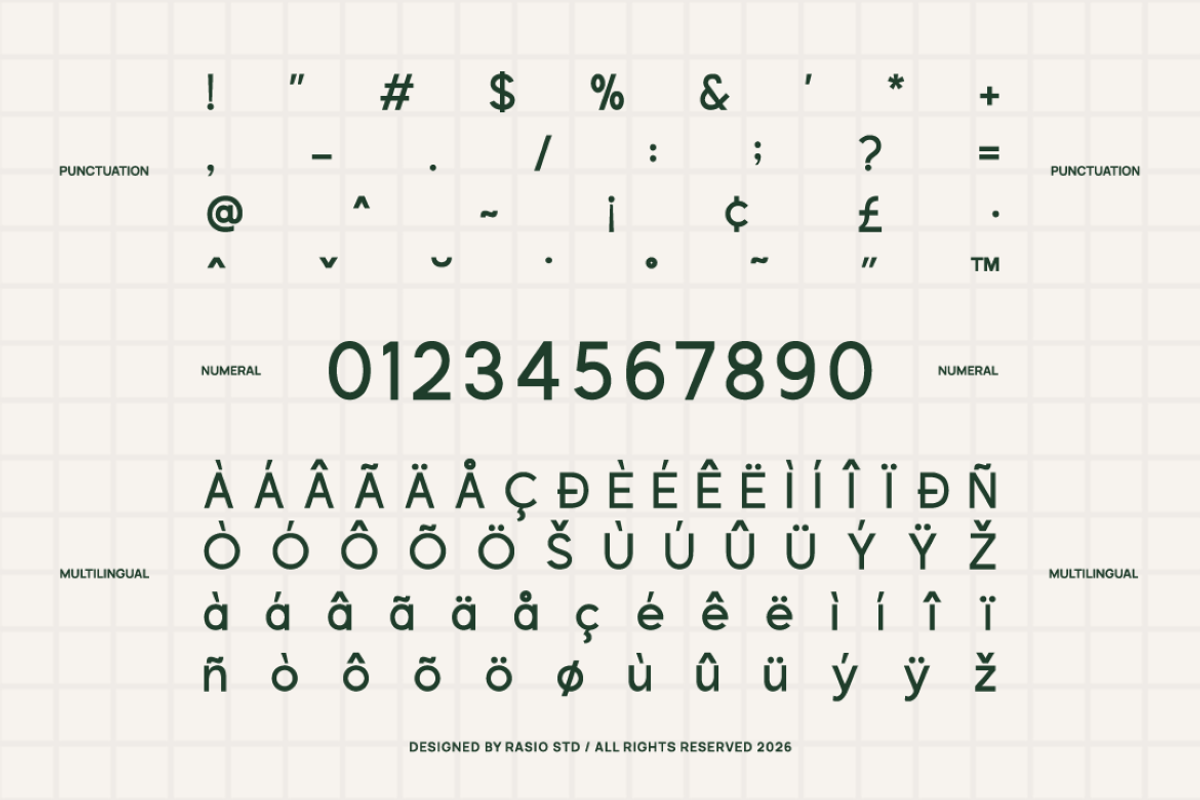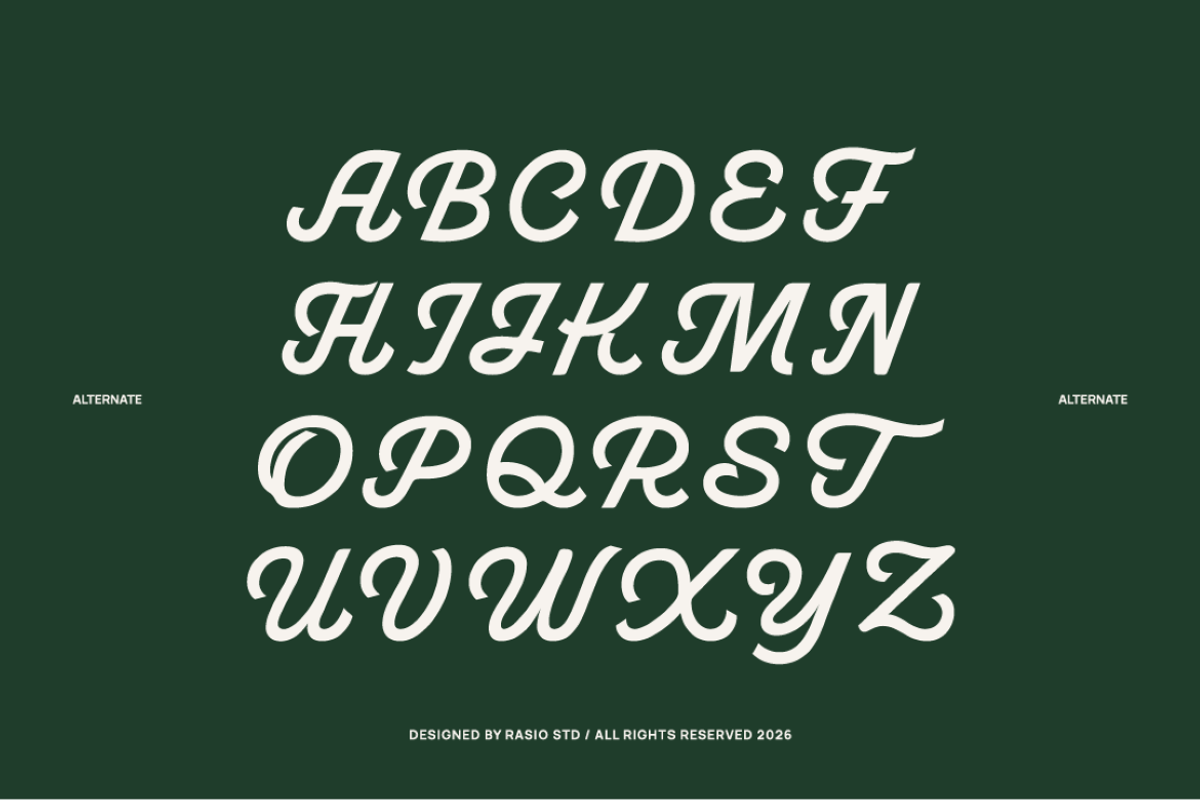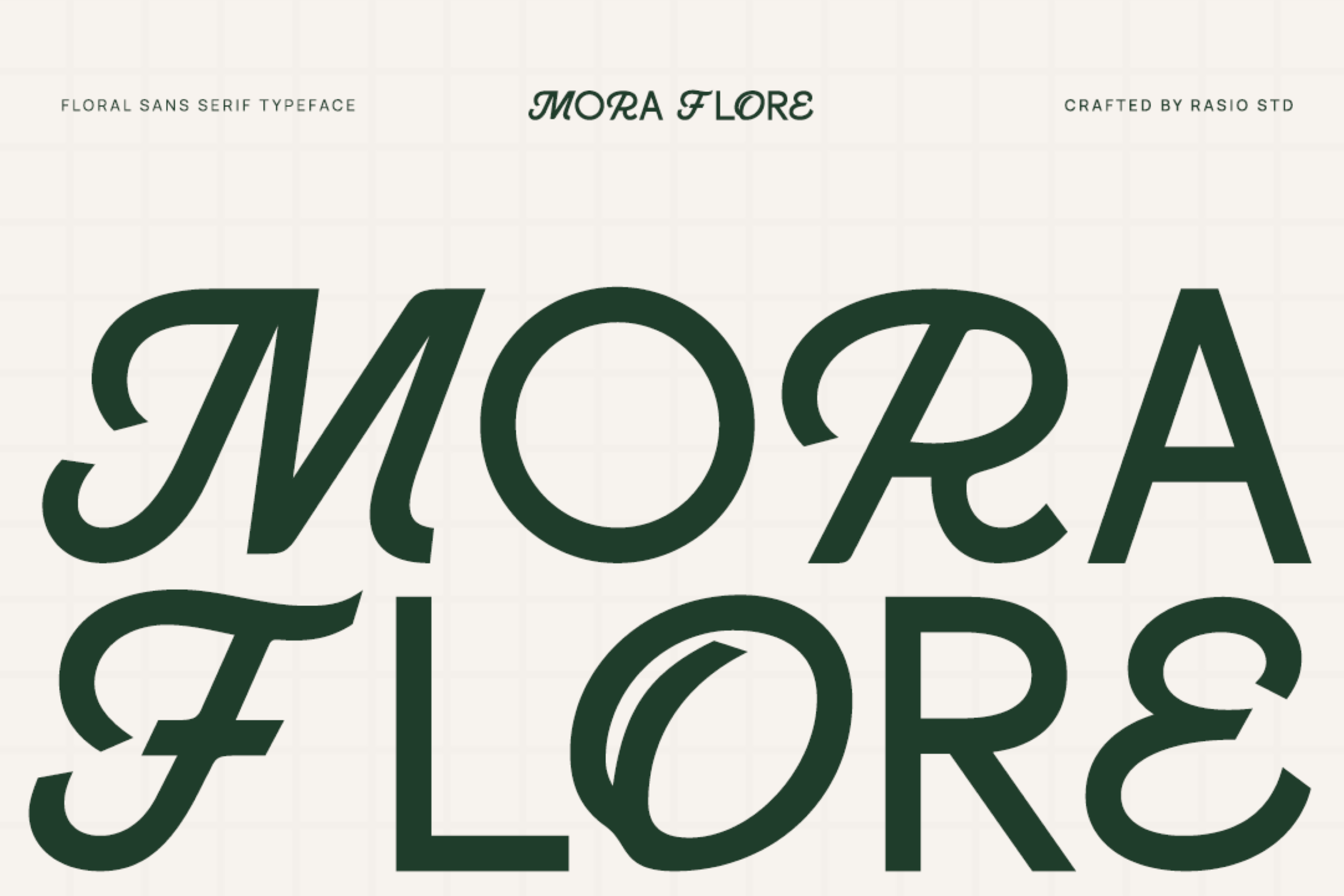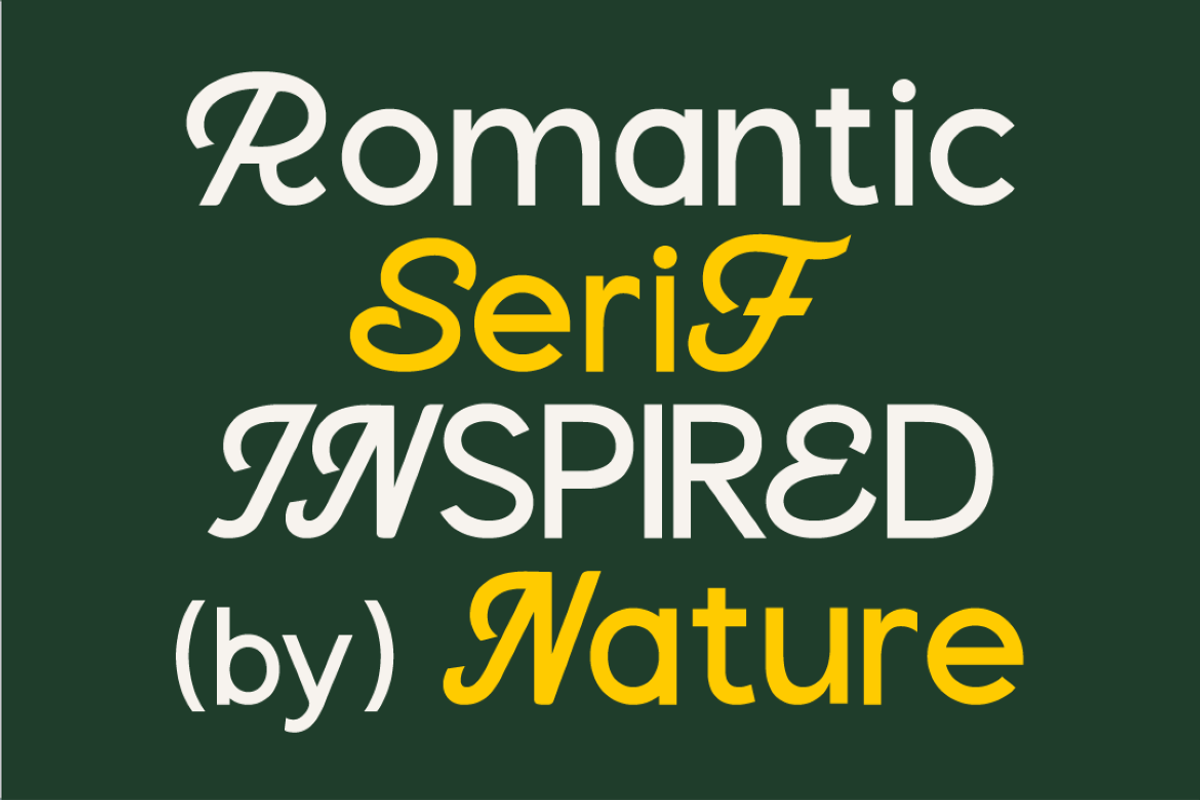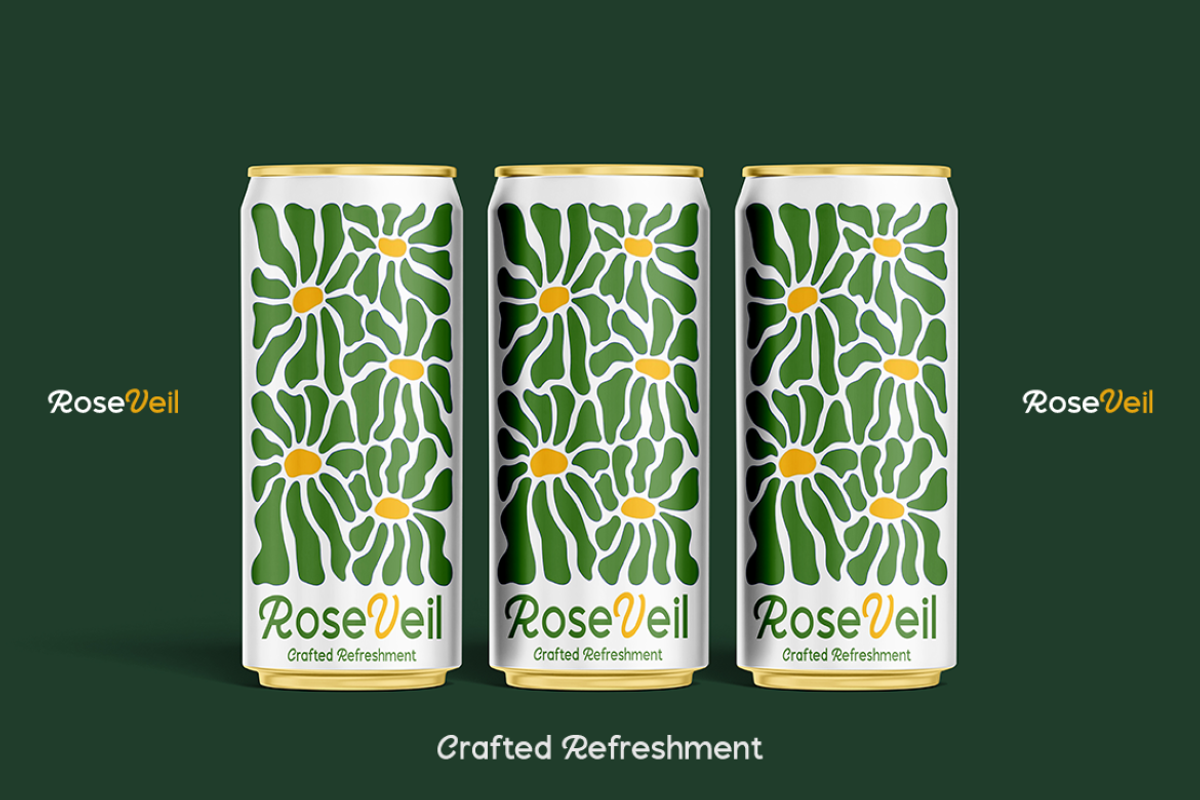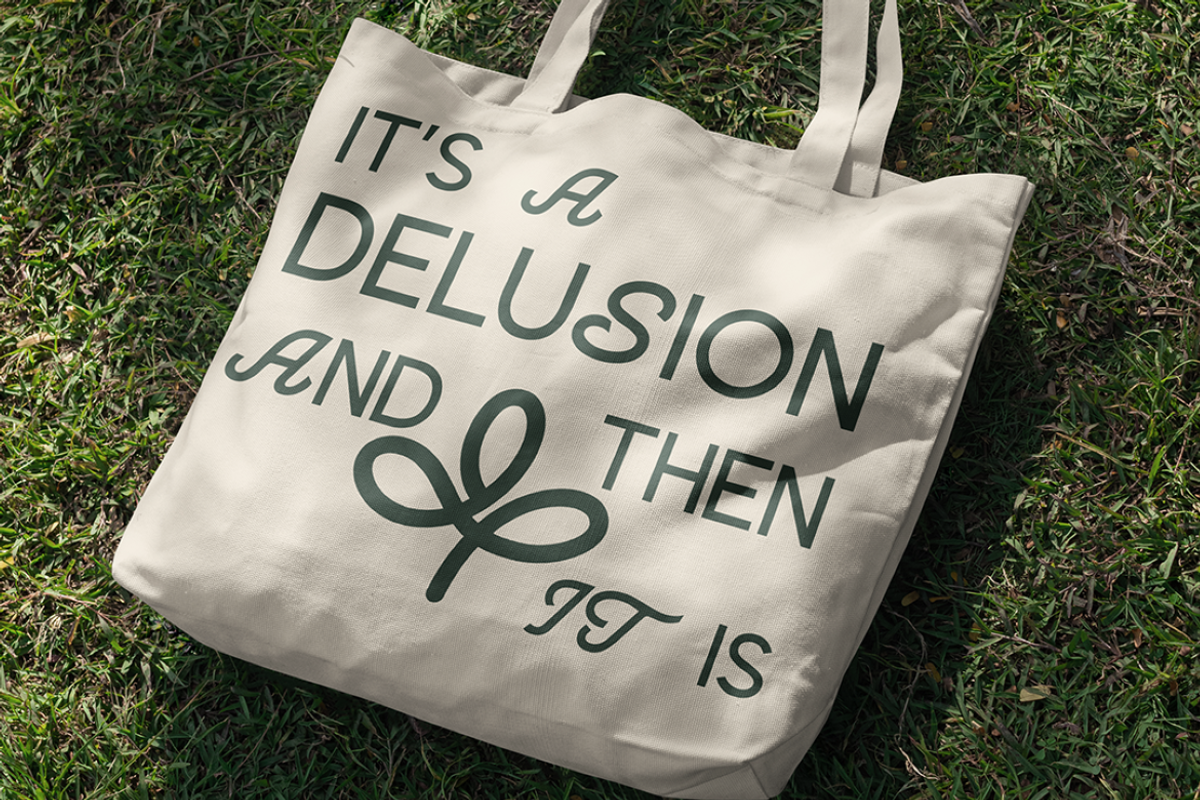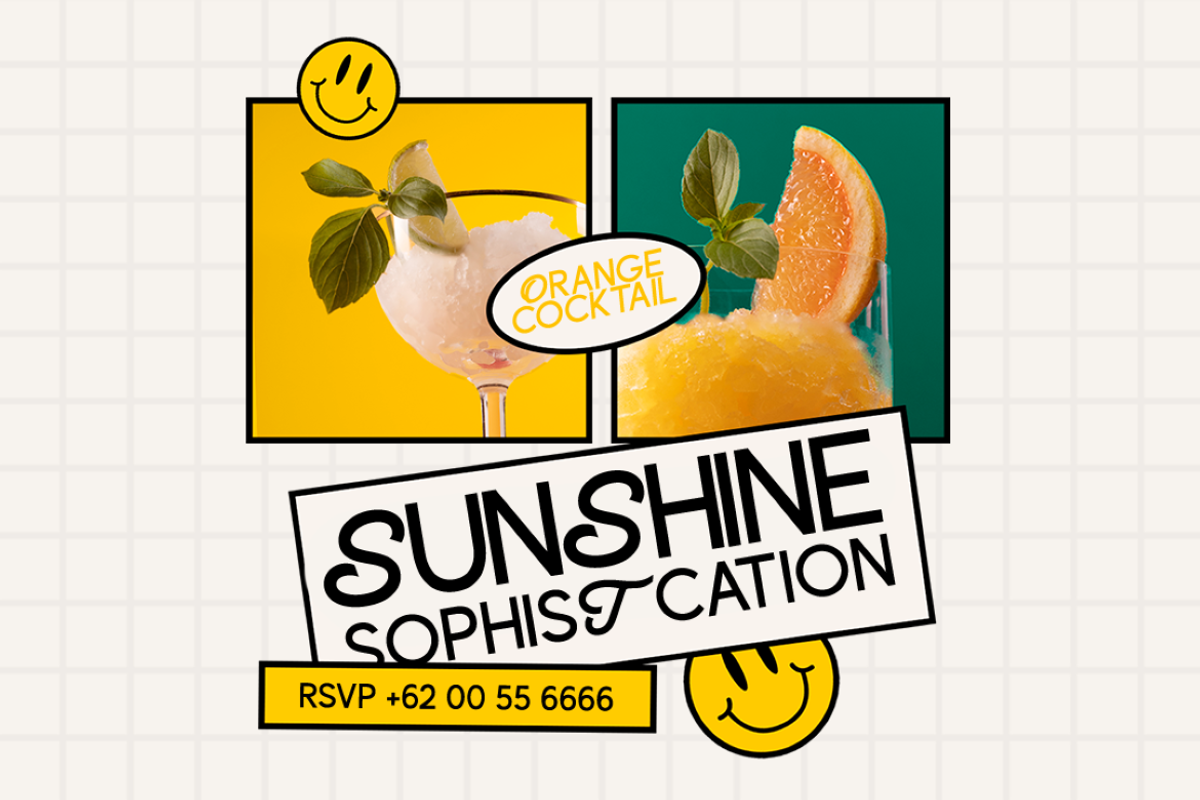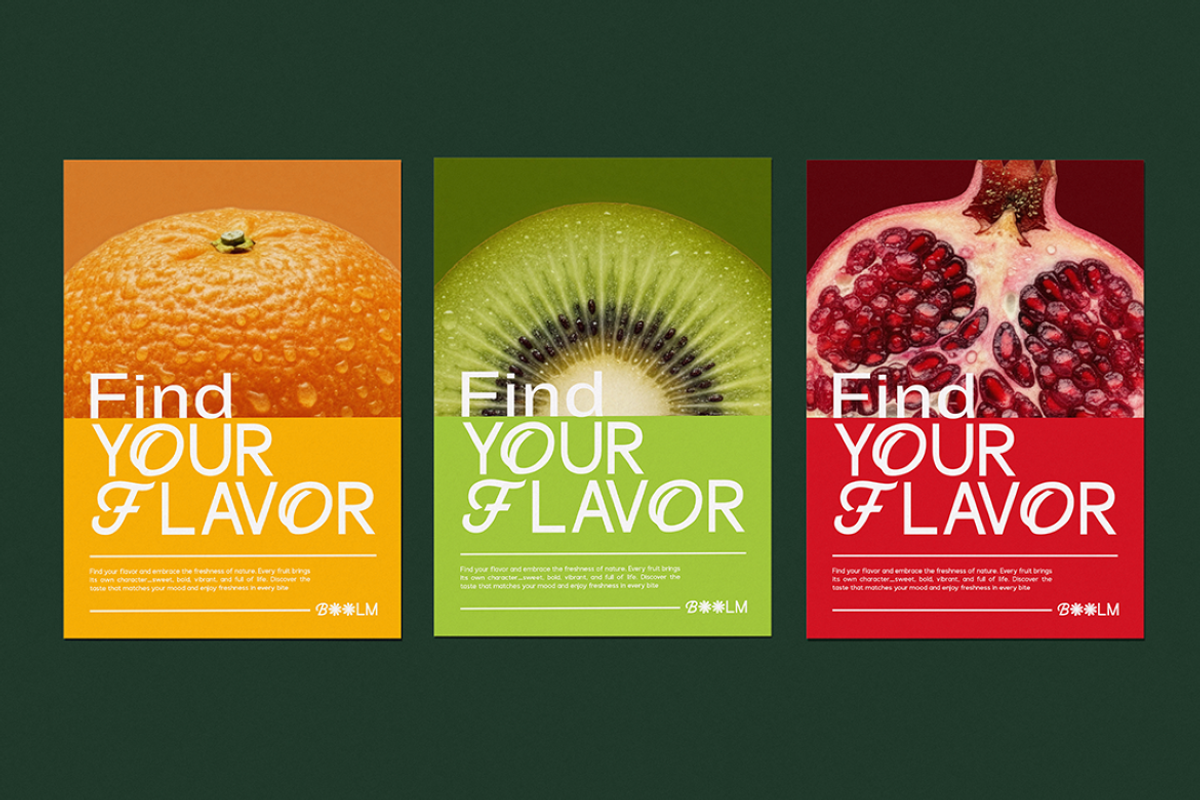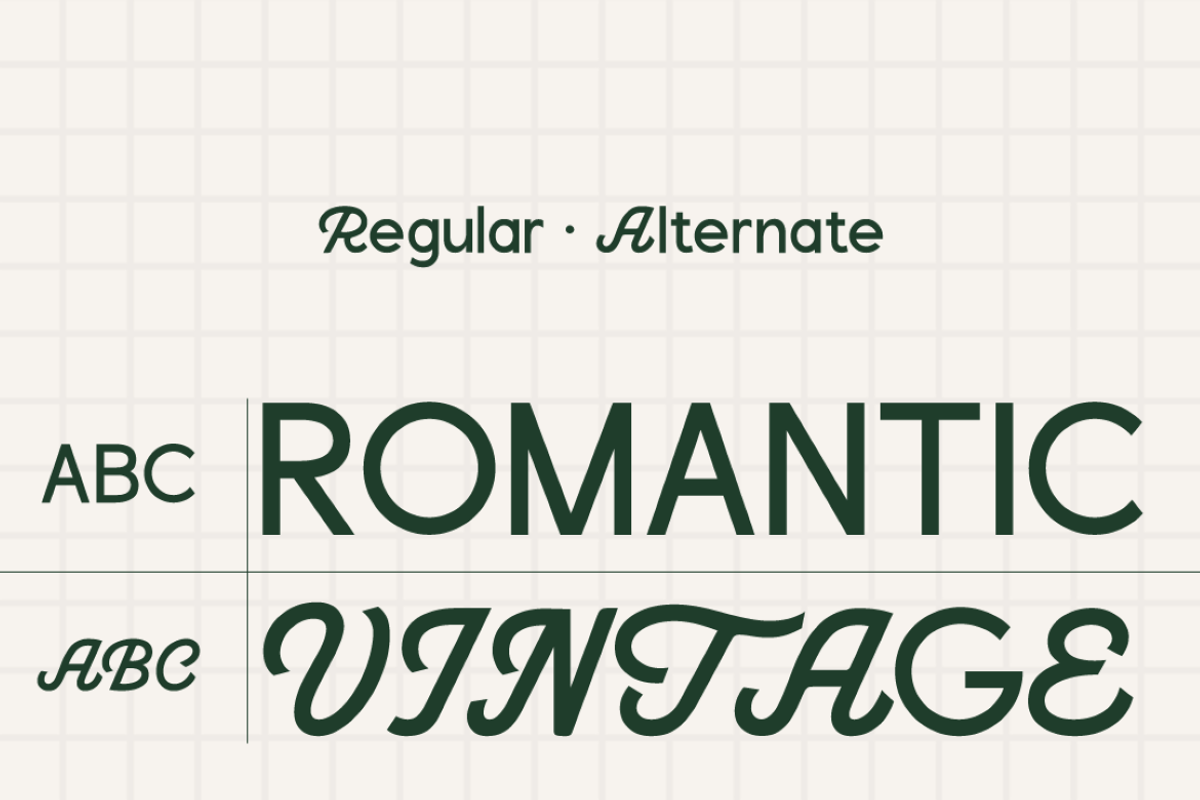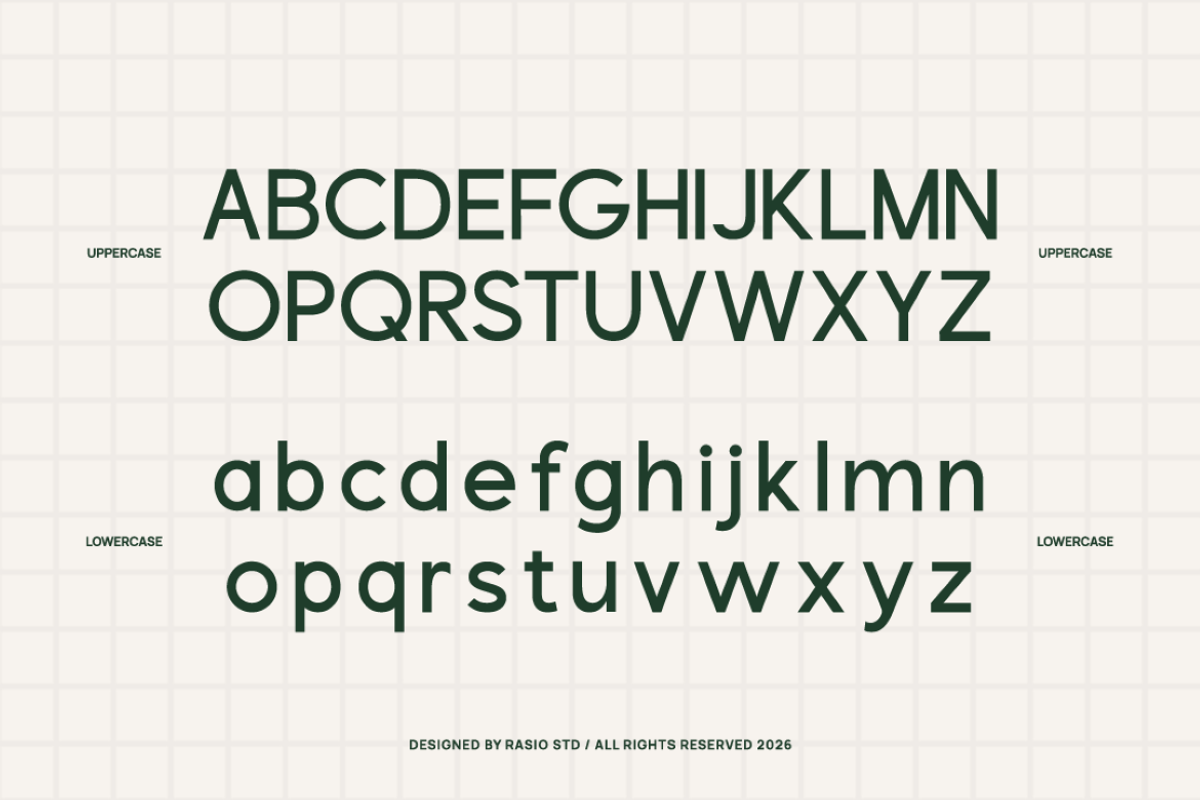
Mora Flore Floral Sans Serif Font
Mora Flore is a refined floral-inspired sans serif typeface that blends clean modern structure with elegant decorative alternates. The font features smooth curves, balanced proportions, and graceful letterforms that bring a sophisticated yet expressive character to your typography. This typeface includes uppercase, lowercase, numbers, punctuation, and stylistic alternate characters that introduce subtle ornamental flourishes.
Mora Flore is ideal for branding projects, fashion labels, beauty and lifestyle brands, editorial magazines, packaging design, boutique logos, invitations, social media graphics, and modern marketing visuals. Its combination of clean structure and decorative alternates makes it a versatile choice for both professional branding and creative design projects.
- Clean modern sans serif structure with balanced proportions
- Elegant floral-inspired alternates that add decorative character
- Smooth curves and soft terminals for a refined appearance
- Clear, minimal letterforms that maintain excellent readability
- Harmonious spacing ideal for both display typography and stylish branding
- Brand identity and logo design for fashion, beauty, and lifestyle brands
- Editorial magazines, book covers, and elegant headline typography
- Product packaging and label design with a refined decorative touch
- Wedding invitations, boutique branding, and luxury stationery
- Social media graphics and marketing visuals with stylish character